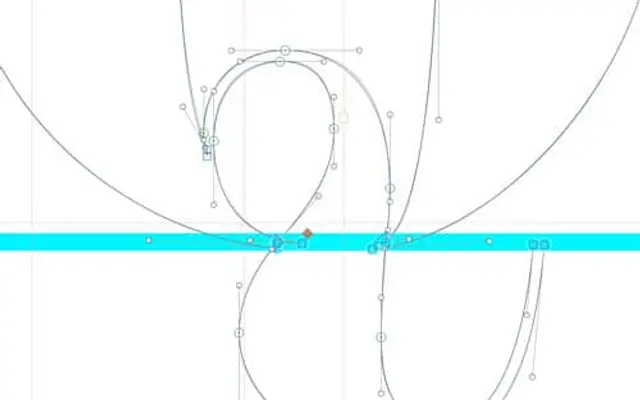
Foundry Tiento
The Foundry Types · David Quay · 2020
A Didone with extreme thick-thin contrast and ball terminals by David Quay, developed over more than a decade and named after classical Spanish tiento music.
Rooted in a condensed Didone Quay originally drew for Letraset in 1987, Foundry Tiento takes the same dramatic stroke contrast into more classical proportions, with unbracketed hairline serifs and a vertical axis drawn in the manner of Bodoni and Didot. Four weights from Regular to Heavy each carry a matching italic, and the extreme contrast of the letterforms is preserved across the range whilst the hairline stroke remains constant. The character set covers Central and Eastern European languages with small caps, extended ligatures and four figure sets.
Foundry Tiento is a Neo-classical Didone with strong thick-thin contrast, unbracketed hairline serifs and a vertical stress axis, placing it firmly in the Bodoni and Didot tradition of the late 18th and early 19th century.